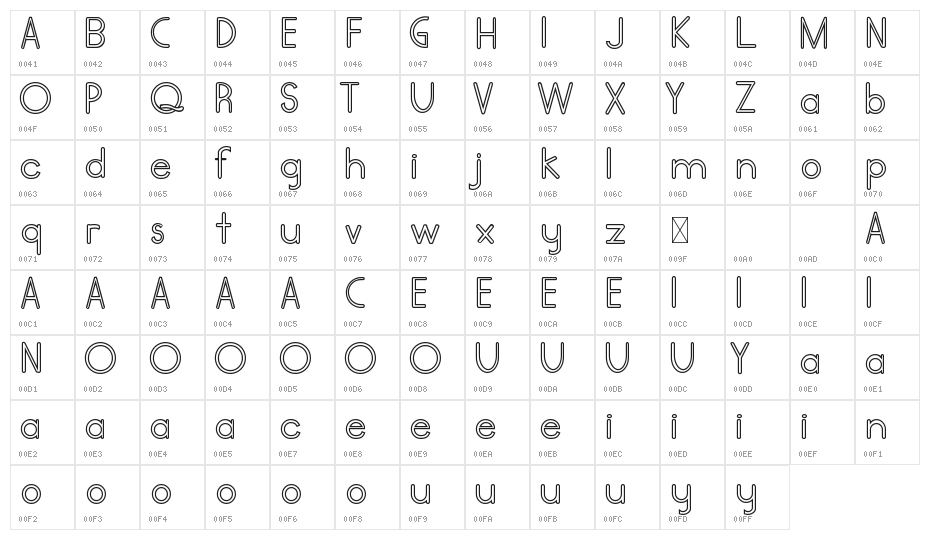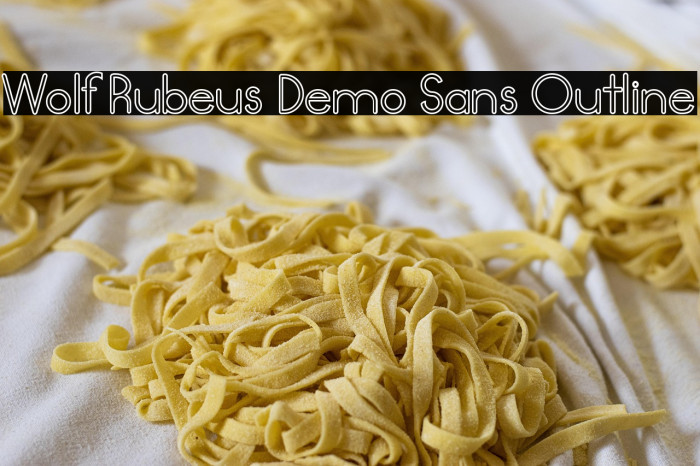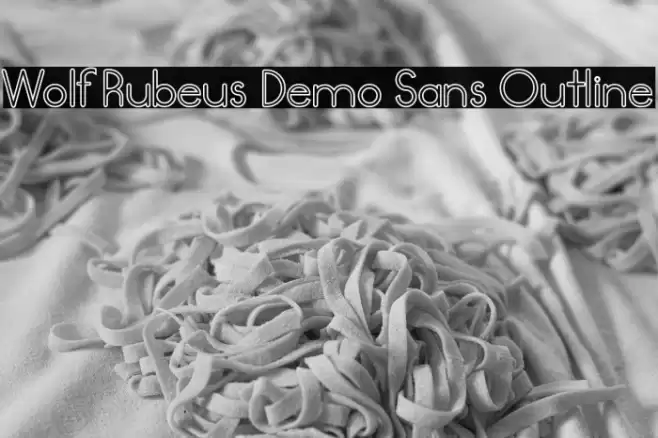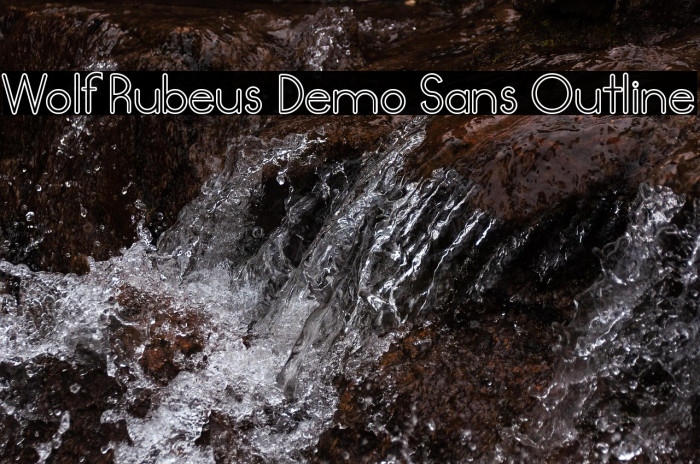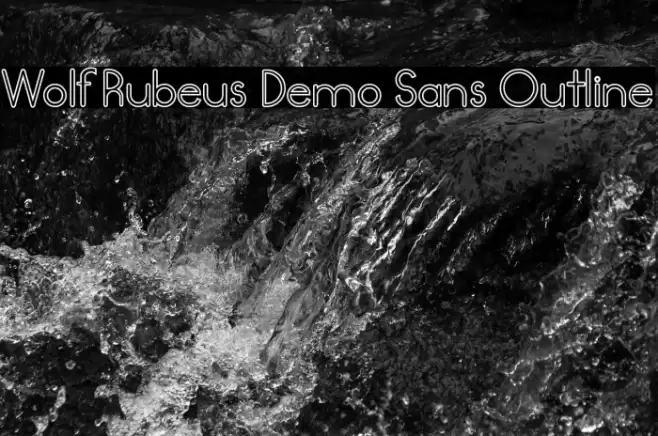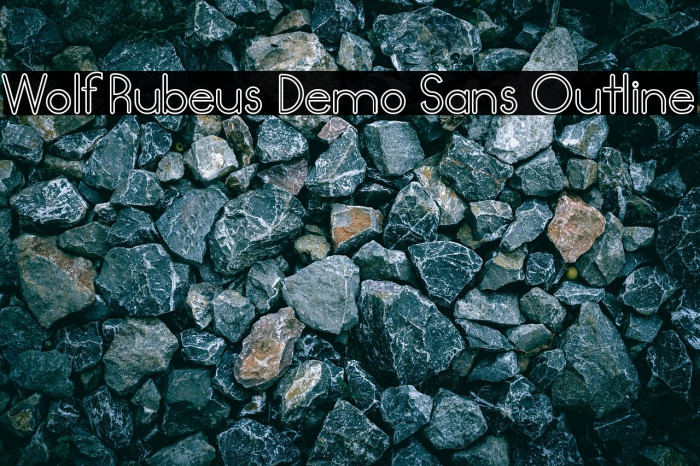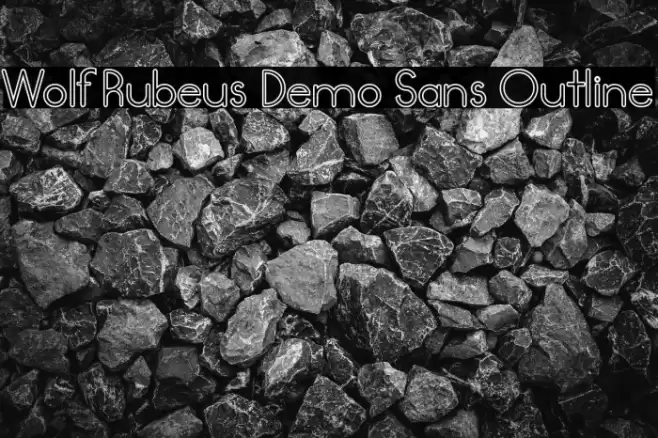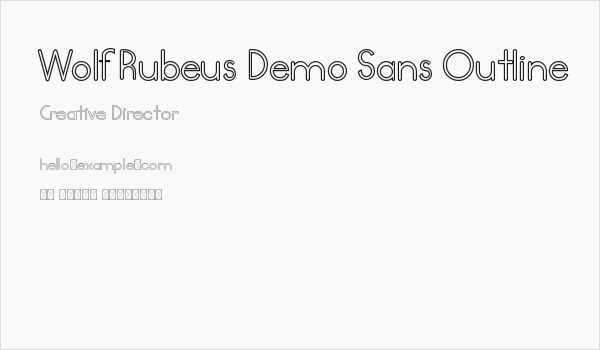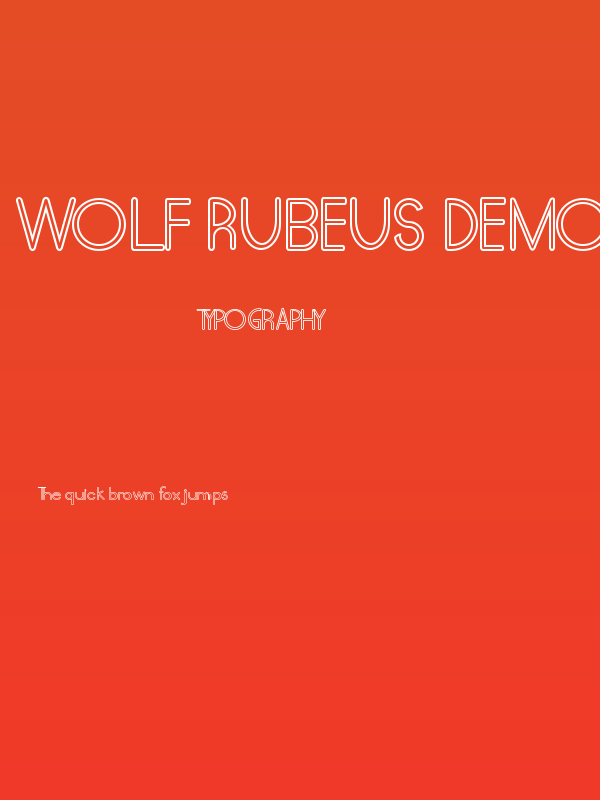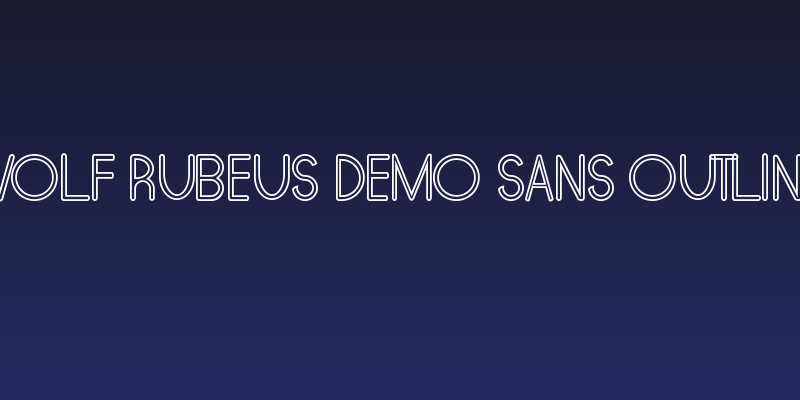
Wolf Rubeus Demo Sans Outline Font
Wolf Rubeus Demo Sans Outline Description
This font features a clean, modern sans-serif style with a distinctive outline design. The characters are formed with consistent stroke widths, creating a uniform and balanced appearance. The uppercase and lowercase letters maintain a geometric structure, with rounded edges that add a touch of softness to the overall look. The font's outline nature gives it a unique, airy feel, making it stand out in various design contexts. It is versatile and can be used in both digital and print media, offering a contemporary aesthetic that is both eye-catching and easy to read.
| Proposed Projects | Ideal for branding, posters, headlines, and digital media where a modern and distinctive look is desired. |